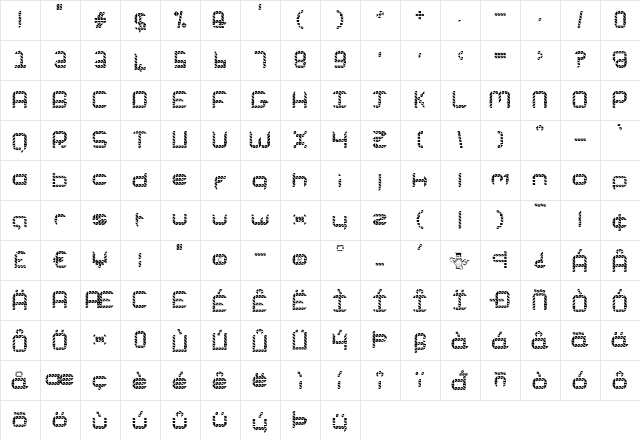
SidesAndCorners Regular
Design Context for SidesAndCorners Typeface
SidesAndCorners is a composed and adaptable typeface that performs quietly and consistently across a wide range of design contexts.